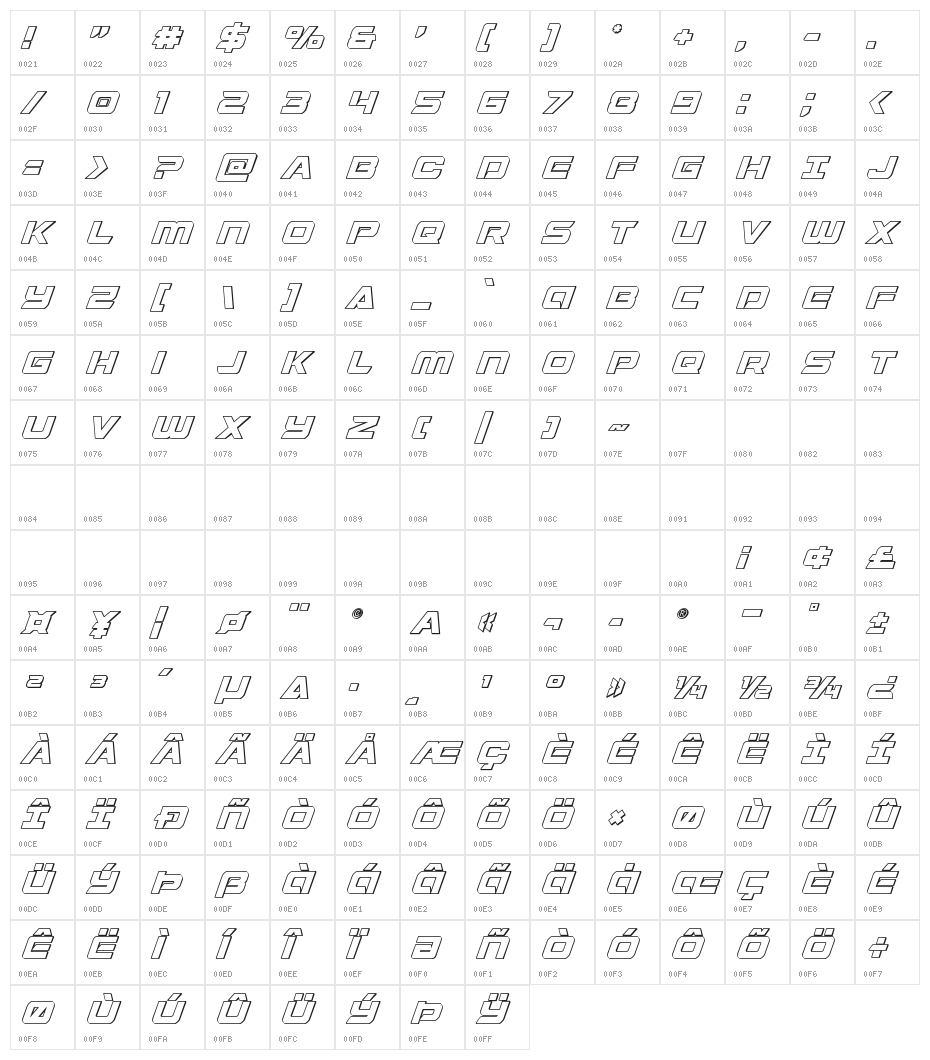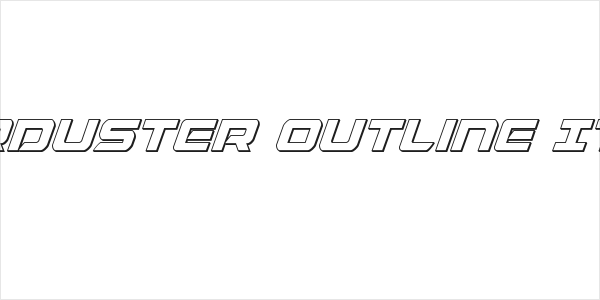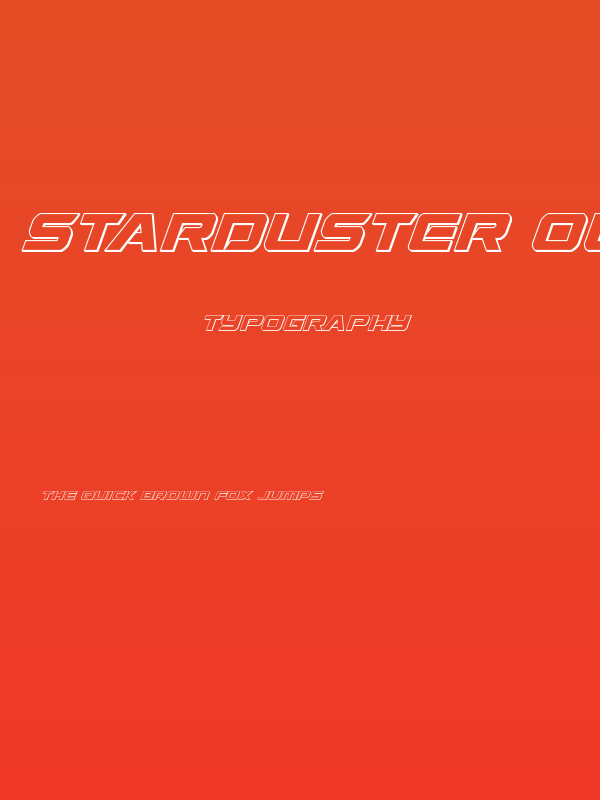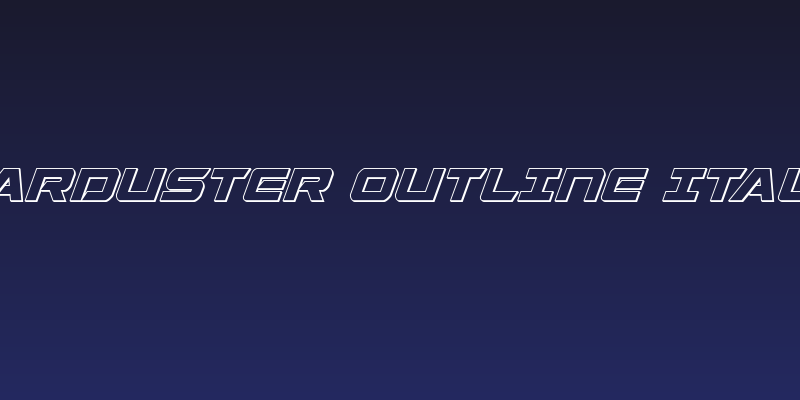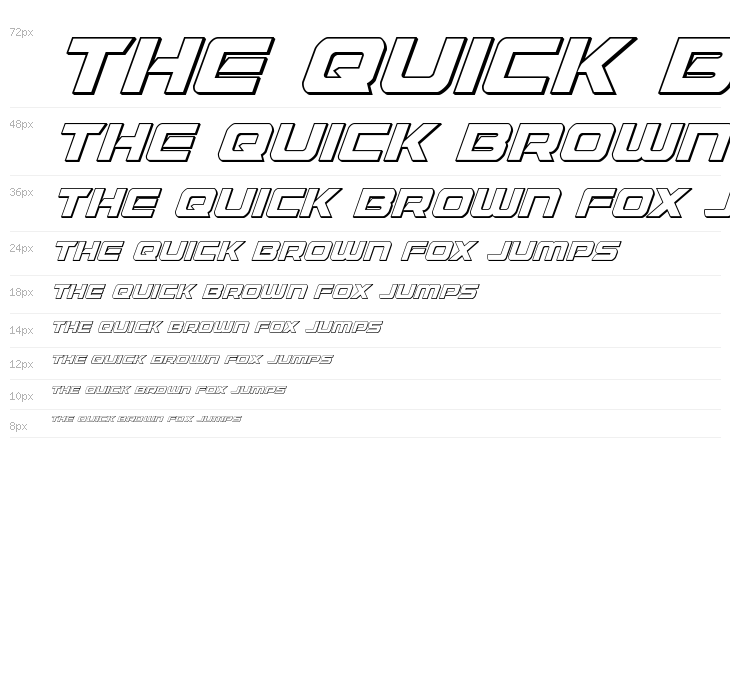
Starduster Outline Italic Font
Starduster Outline Italic Description
This font features a distinct outline style with a futuristic and geometric design. The characters are italicized, giving them a dynamic and forward-leaning appearance. Each letter is crafted with precision, showcasing clean lines and sharp angles. The uppercase and lowercase letters maintain a consistent style, with the numbers and special characters following suit. The outline effect adds a unique dimension, making the text appear bold and eye-catching without being filled. This font is ideal for projects that require a modern and tech-inspired aesthetic.
| Proposed Projects | Ideal for sci-fi themed designs, tech branding, video game titles, and futuristic posters. |